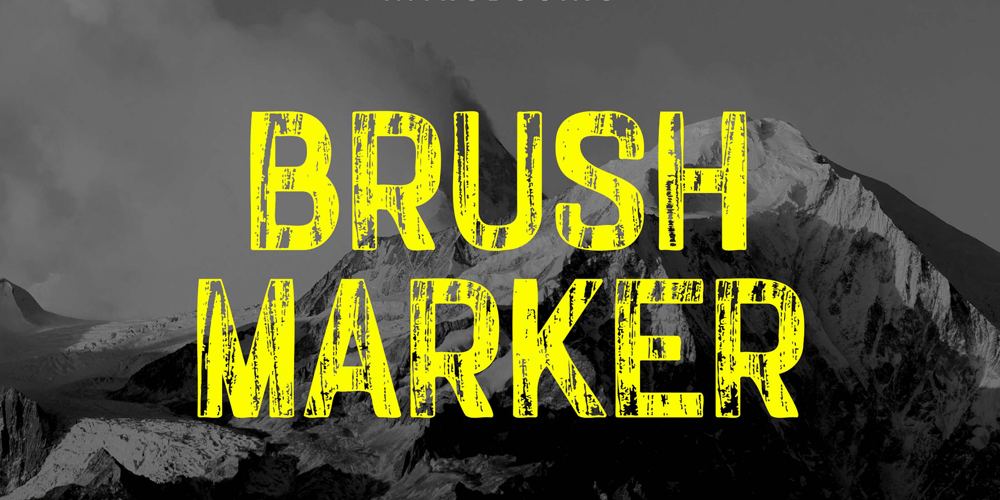
Brush Maker Font Family was designed by Hero and published by UICreative. Brush Maker contains 1 styles and family package options. Introducing our new product the name Brush Marker Hand Painted Font. Modern Display font that is beautiful classy, elegant, and modern. This font is perfectly suited for a wide variety of projects, such as signature, stationery, logo, wedding, typography quotes, magazine or book covers, website headers, clothing, branding, packaging design, and more. Also for fashion-related branding or editorial design and displays both masculine and feminine qualities.